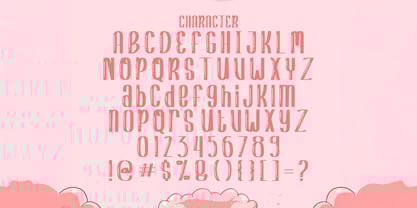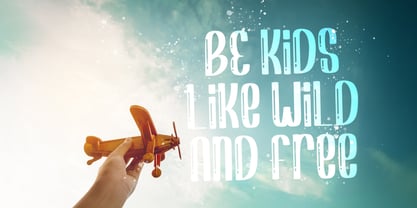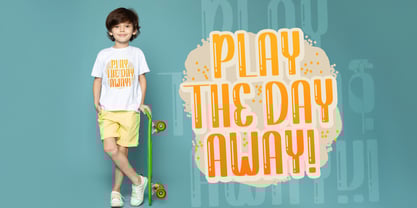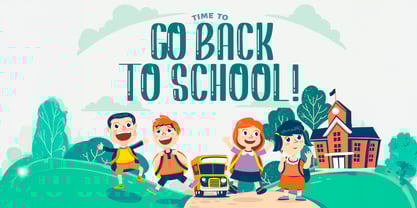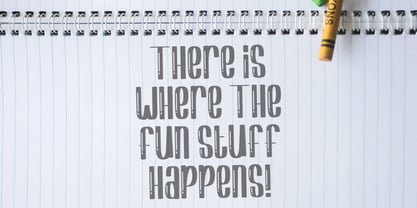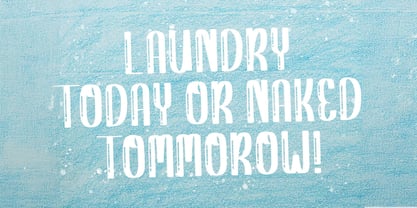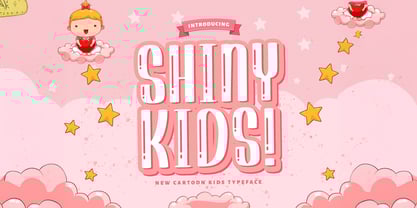
The Shiny Kids Font Family was designed by Virgiawan Listanto and published by Stringlabs Creative Studio. Shiny Kids contains 1 styles. More about this family
Shiny Kids is a joyful and bubbly display font made to light up little imaginations! With its rounded edges, playful curves, and cheerful vibe, Shiny Kids is perfect for any design that wants to be fun, friendly, and full of energy. Great for children's books, party invites, educational materials, and toy packaging, Shiny Kids brings a sense of happiness and creativity wherever it appears.
Shiny Kids